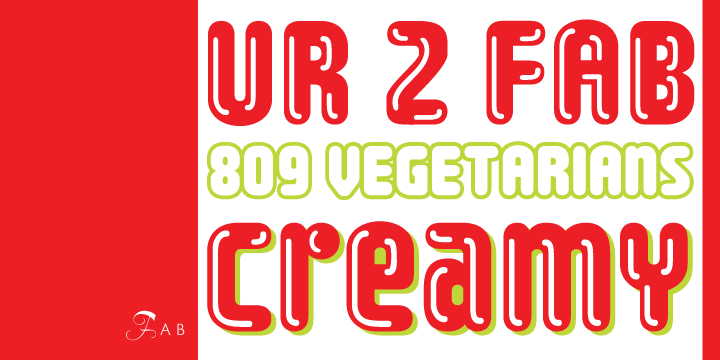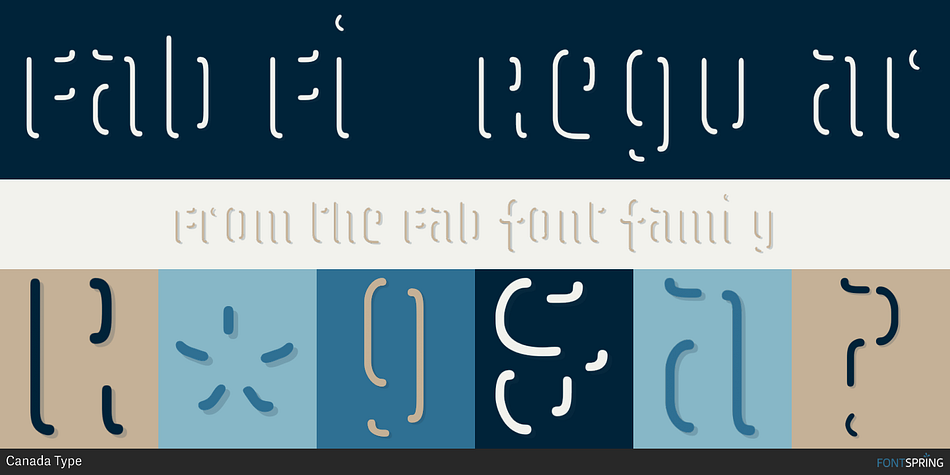
Fab Fill Regular
Fab is a display, novelty and retro font family. This typeface has five styles and was published by Canada Type.
It’s 1984 and everything has sideburns. Shoulder-padded “dress for success” is in, with power suits for women, black and white layers for men, neon brights for the youngsters. Maggie’s “enemy within” and “no society” speeches preface the arrival of shopping malls and corporate status symbols. The economy is a philosophy and accountants carry ambiguous but very sophisticated-sounding titles. Thousands of words and expressions are reduced to initials or monosyllabic sounds. Synthesizers are very refined and the music is very catchy. The Macintosh and MTV are making waves. Brands are lifestyles. “Yuppy,” Yummy,” “Bobo,” “Dinky” and “Woopie” are standard consumer categories in advertising lingo. The Volkswagen identity, only 5 years old now, is all the rage in design. VAG Rundschrift, by all appearances a rounded and slightly condensed Futura, is everywhere. Tube design is king.
Fast forward two dozen years. Replay, but bigger and much louder. Fab. Let’s dance.
Fab is Canada Type’s tribute to the Eighties. It’s a five-font unicase family that brings tube design into the 21st century. The main font is an all-in-one treatment of the shiny roundness that the 1980s were. Fab White is a tightly packed thick outline font that conveys luscious contentedness like nothing else. The Fab Trio package is very useful for layered and colorful design, with the Black style serving as a backdrop, the Bold style as the front forms, and the Fill style for inlining.